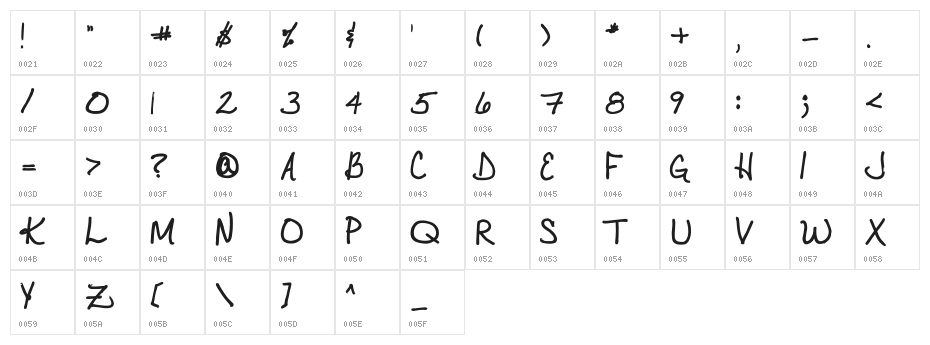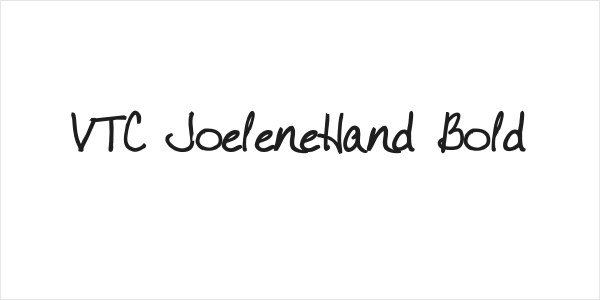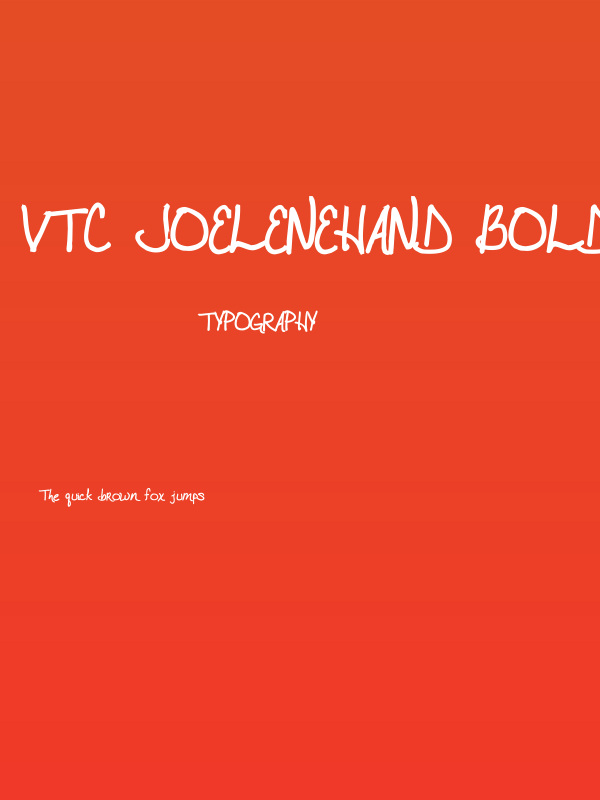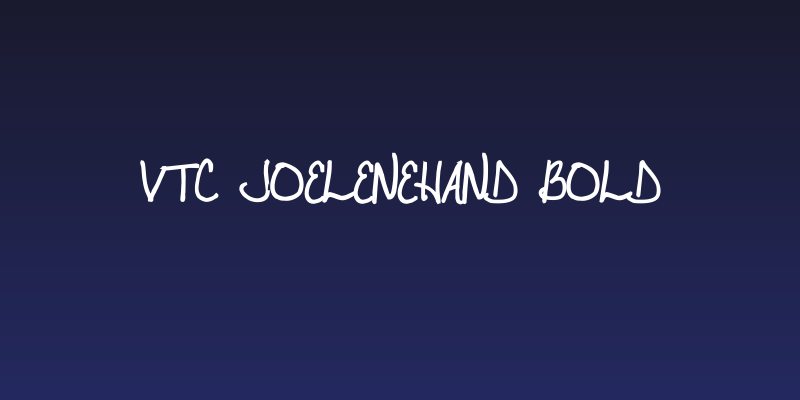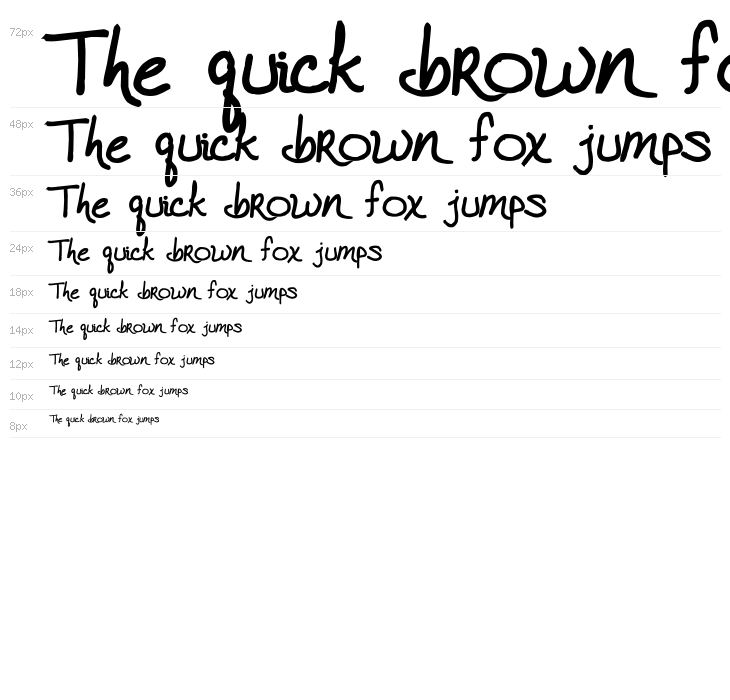
VTC JoeleneHand Bold Font
VTC JoeleneHand Bold Description
This font features a bold, handwritten style with a playful and casual appearance. The letters are characterized by their fluid, cursive strokes, giving them a dynamic and energetic feel. The uppercase and lowercase letters maintain a consistent style, with rounded edges and a slightly irregular baseline that enhances the handwritten effect. The numerals and special characters follow the same aesthetic, ensuring a cohesive look across all elements. This font's boldness makes it stand out, while its informal style adds a personal touch to any design.
| Proposed Projects | Ideal for greeting cards, invitations, personal branding, and casual posters. |